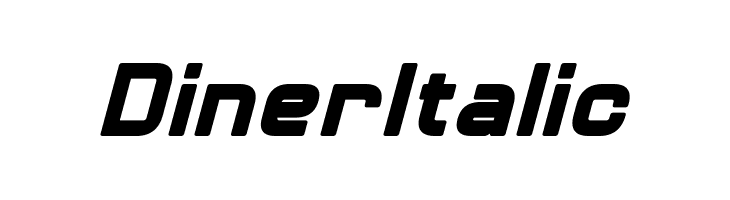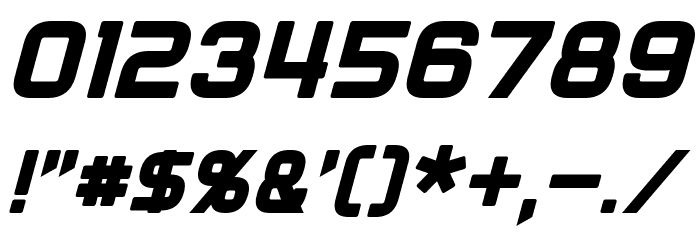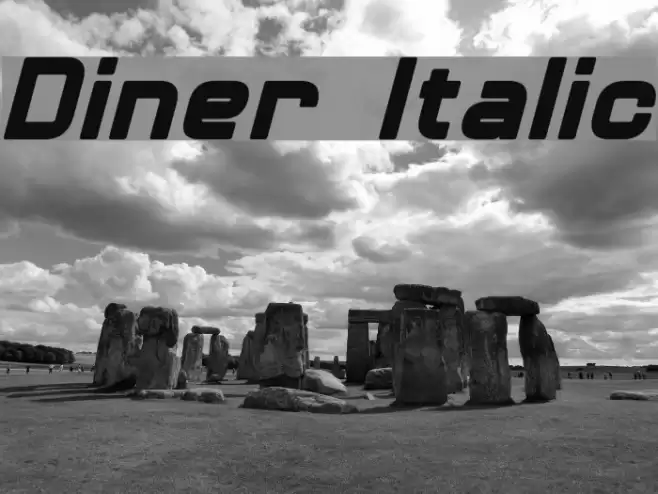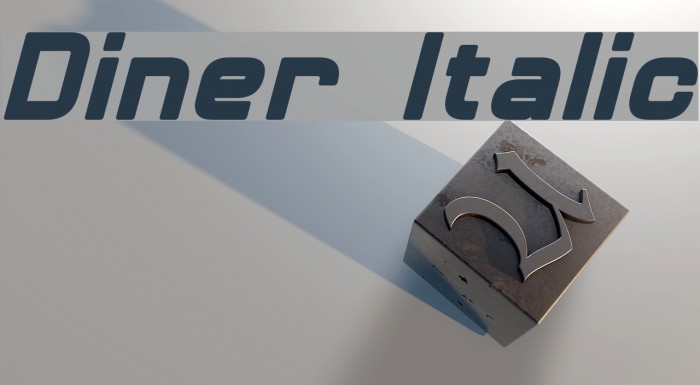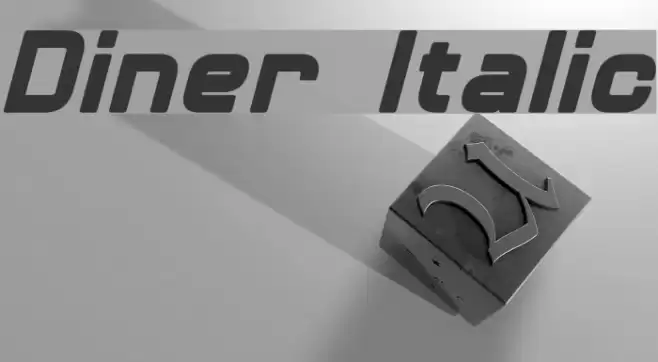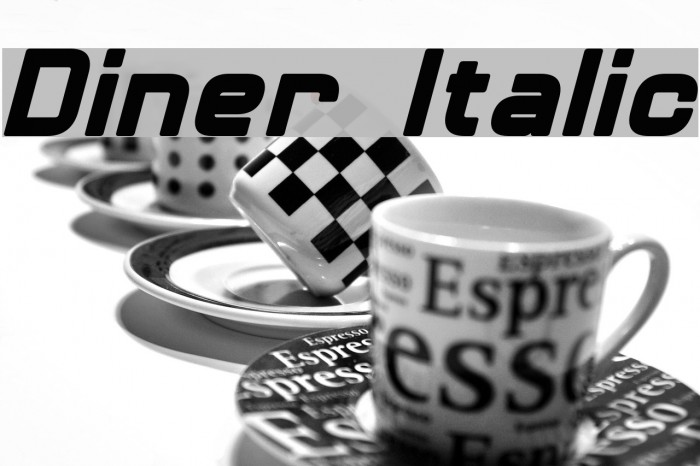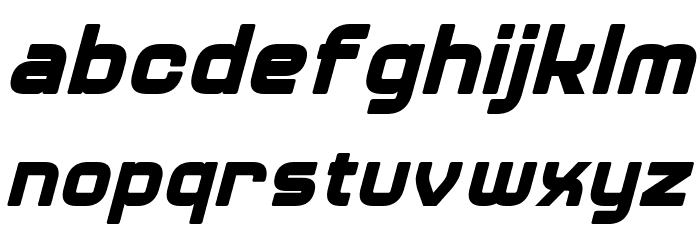
Diner Italic Font
| カテゴリ | Retro |
| 用途 | Headlines, Logos, Branding |
| おすすめプロジェクト | Ideal for branding, advertising, headlines, and any design requiring a modern, energetic touch. |